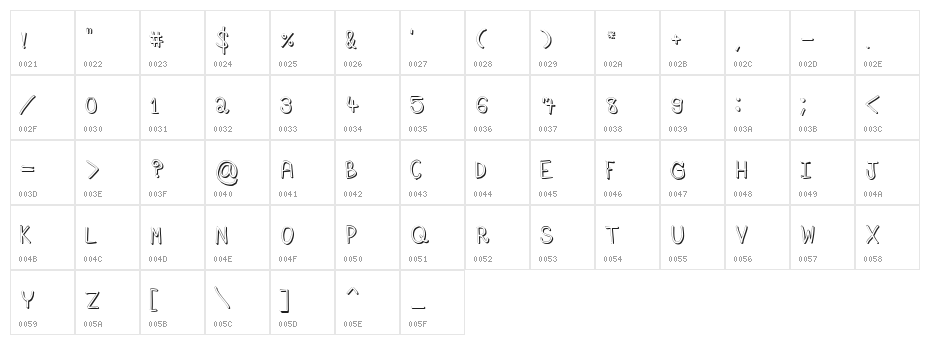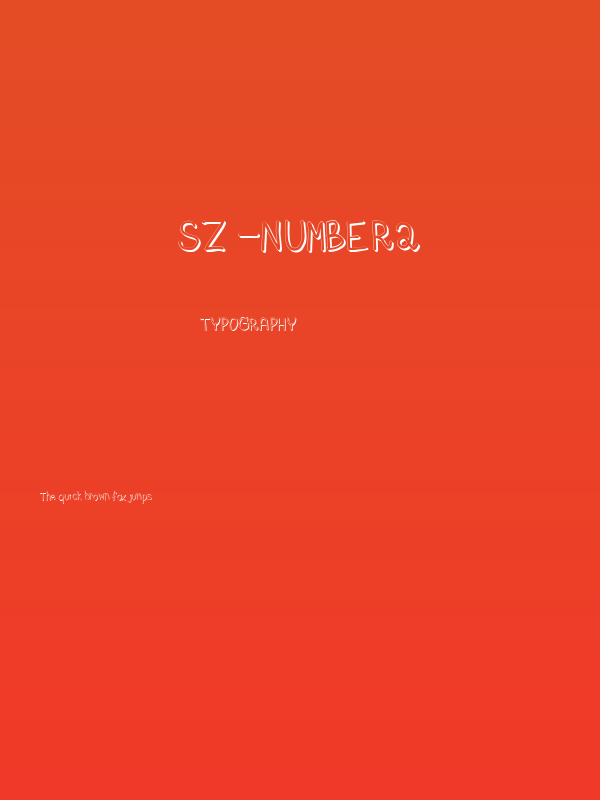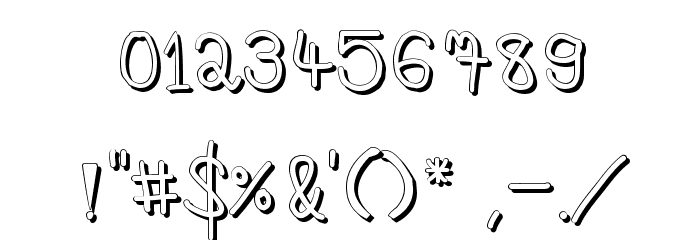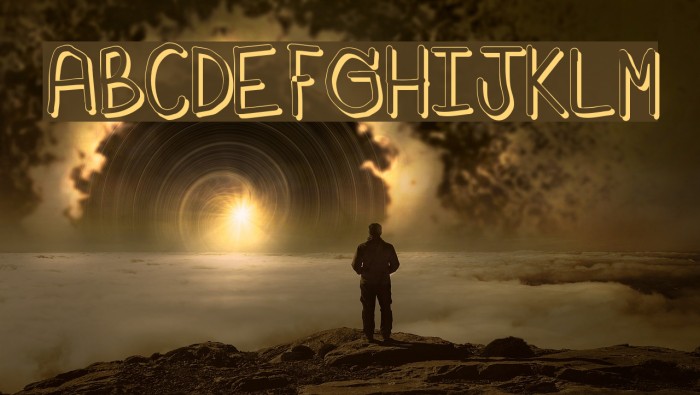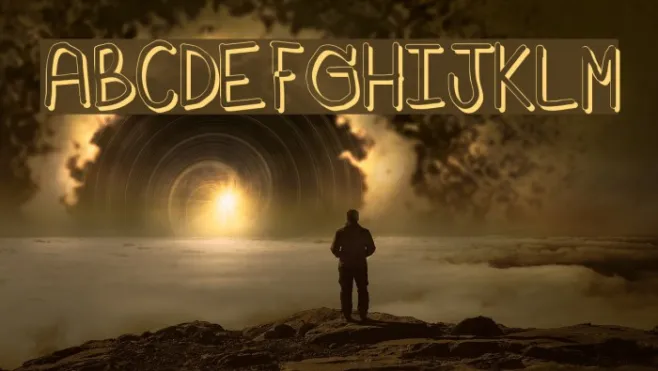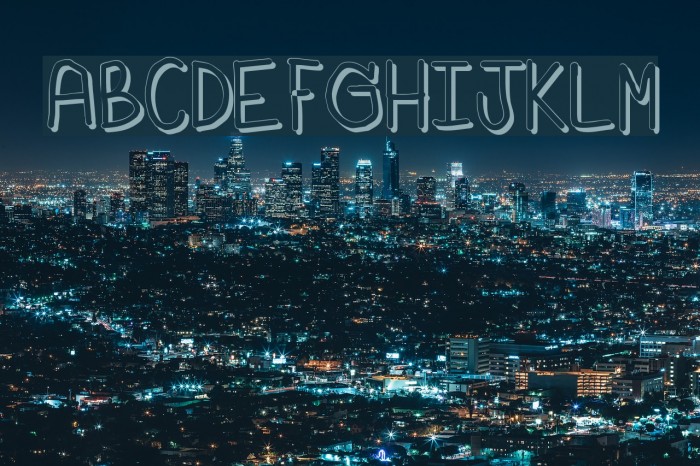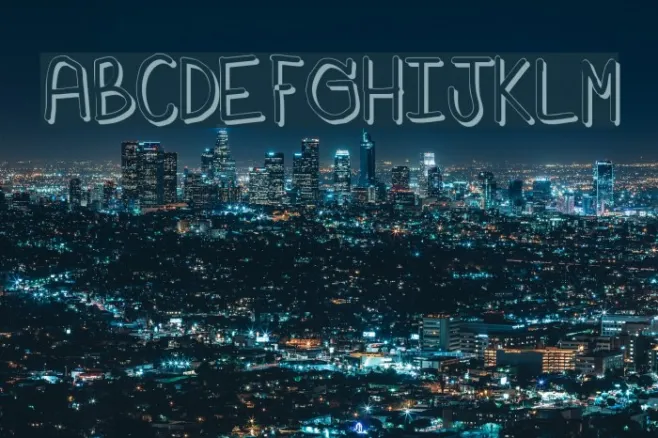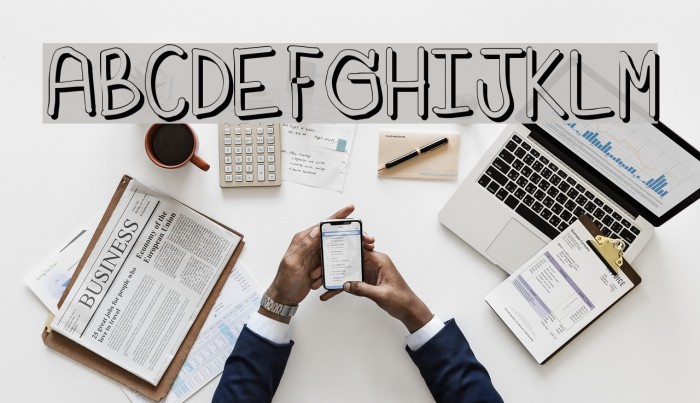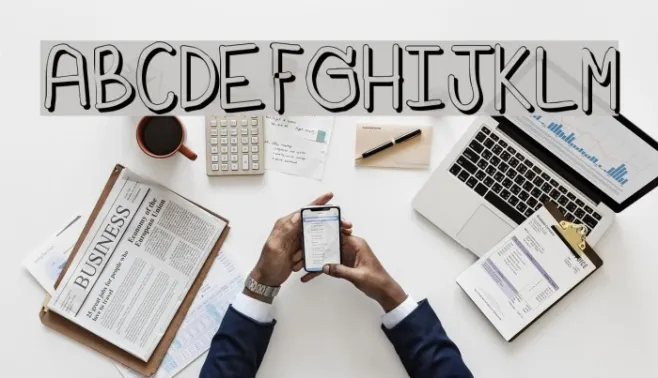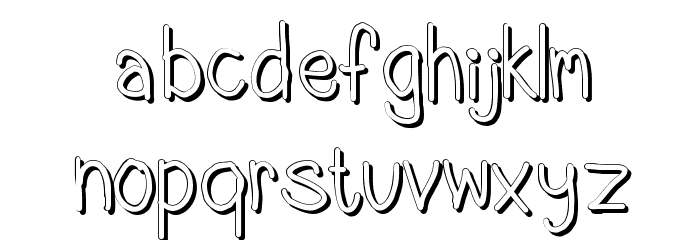
Sz-number2 Font
Sz-number2 Description
This playful and dynamic font features a bold, outlined style with a hand-drawn appearance. The characters are slightly irregular, giving them a whimsical and informal feel. The uppercase and lowercase letters maintain a consistent style, with rounded edges and a casual flow. The numbers and special characters are designed to match the overall aesthetic, making them suitable for creative projects. The font's unique outline effect adds depth and dimension, making it stand out in any design. Its versatility allows it to be used in a variety of contexts, from children's books to playful branding.
| Overall Style | Playful, Whimsical, Informal |
| Proposed Projects | Ideal for children's books, playful branding, posters, and creative invitations. |